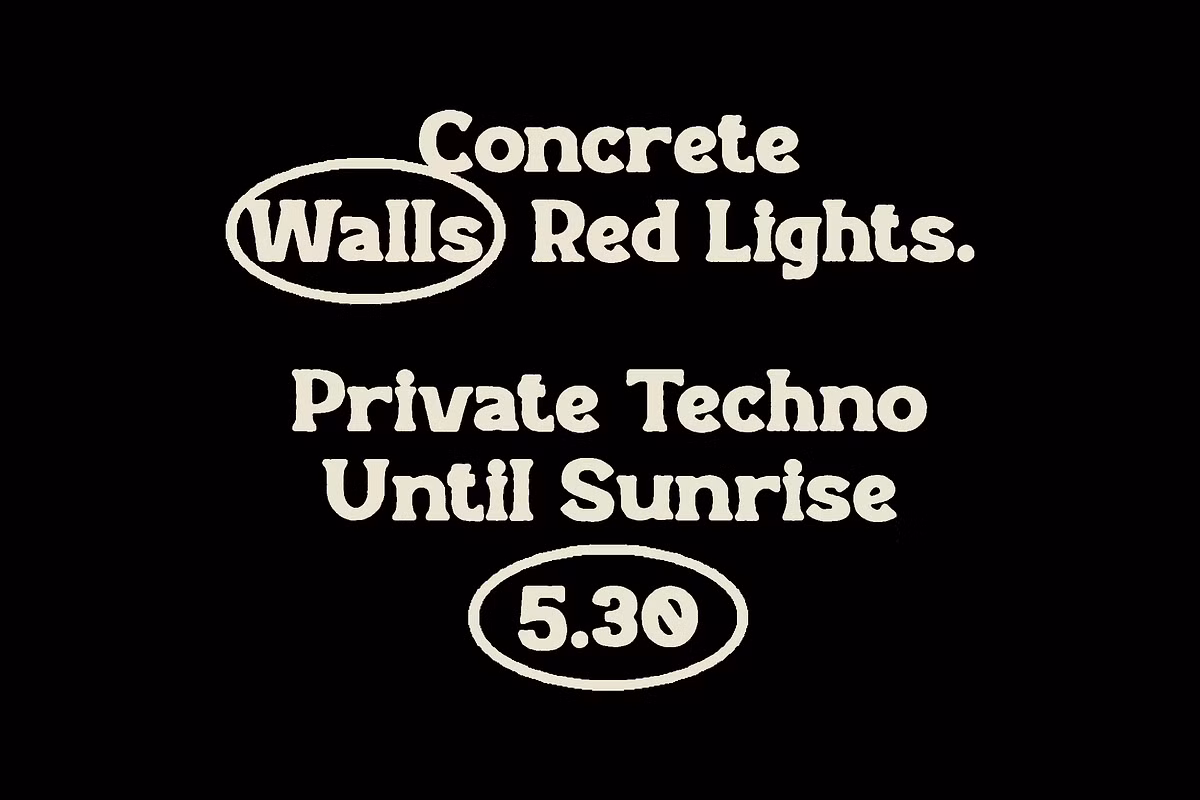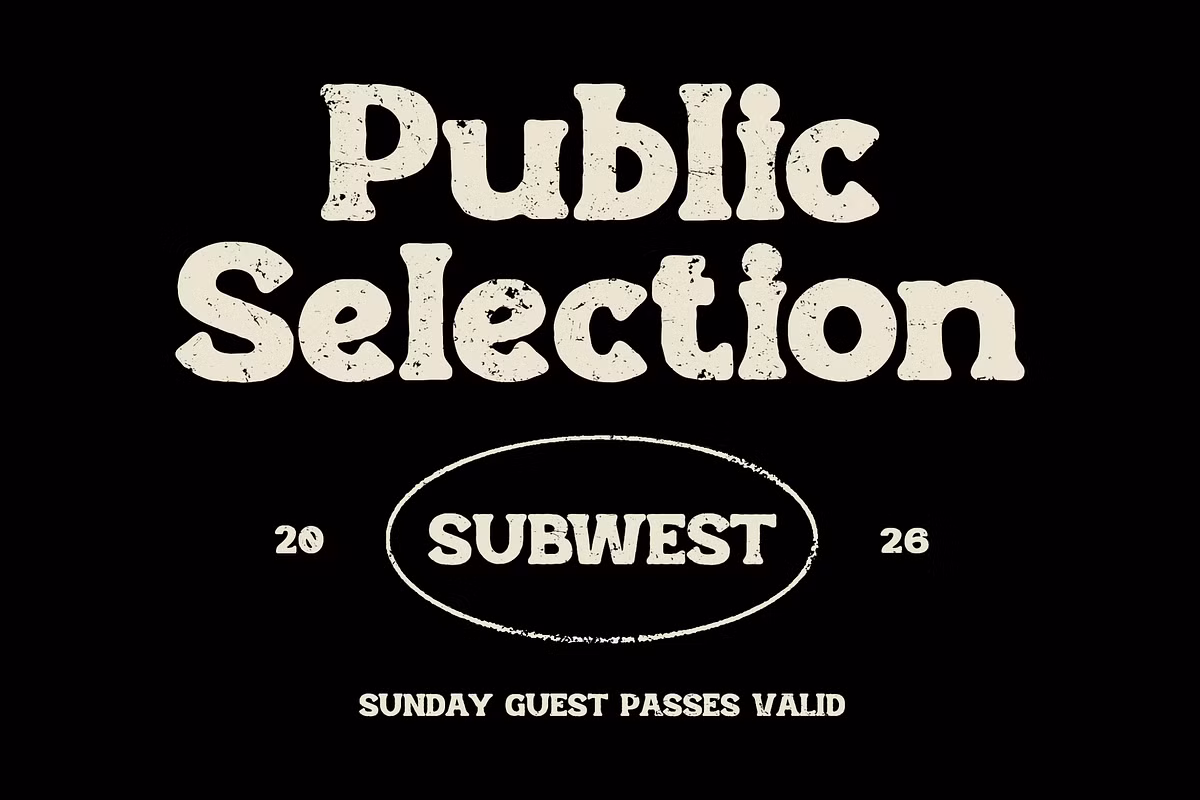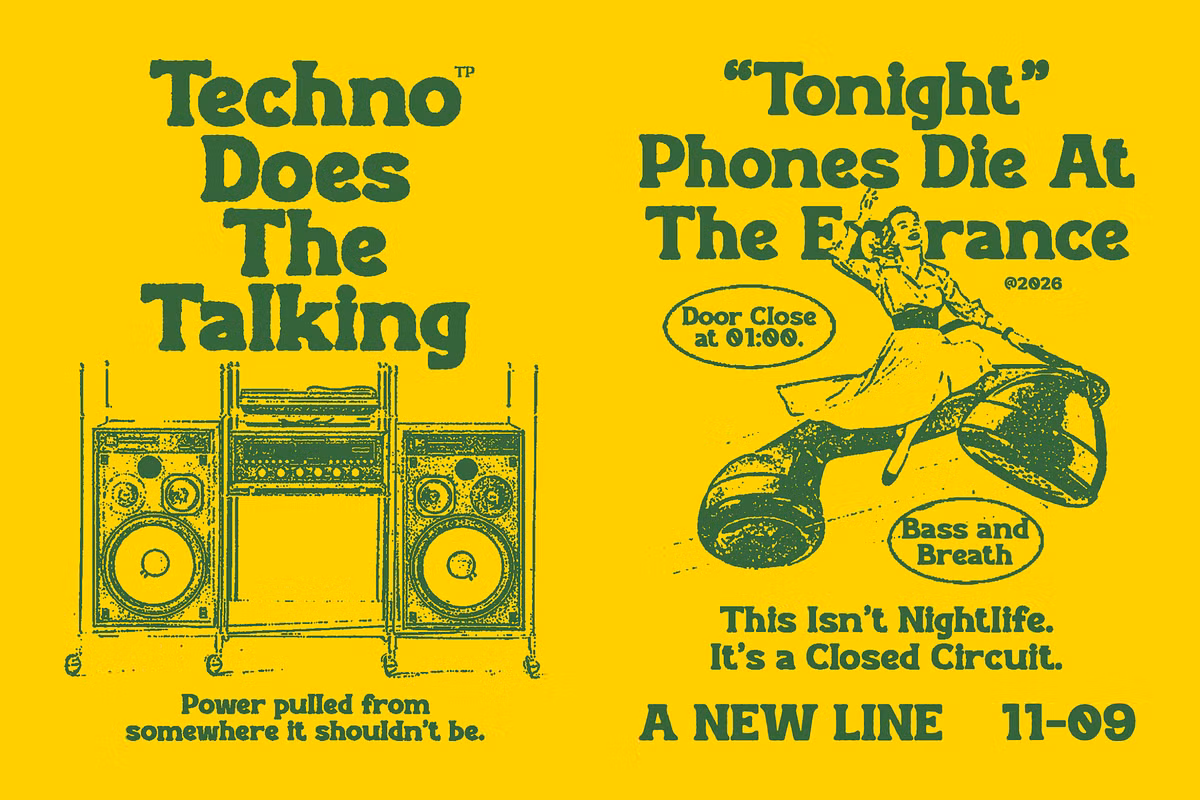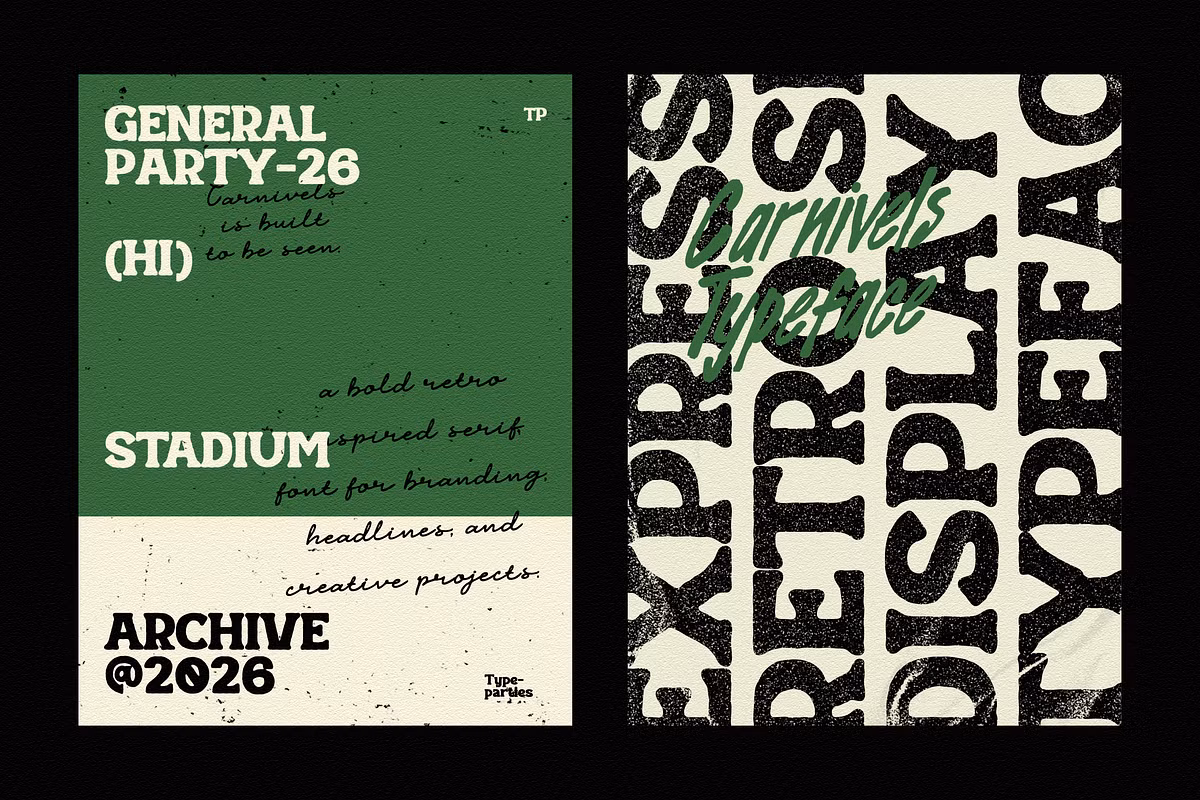
Carnivels: Playful Bold Retro Serif Font for Unique Branding
Carnivels is a bold retro serif display font designed to capture attention and evoke a sense of nostalgia. With its unique features and playful confidence, Carnivels is perfect for creative projects that demand a touch of personality. This article will delve into the design style, character sets, use cases, pairing suggestions, and licensing aspects of this distinctive typeface, ensuring you understand why it’s the ideal choice for your branding needs.
Design Style of Carnivels
Carnivels is a font that takes its cue from old-school lettering, but it’s not just a copycat – it mixes those classic looks with modern design ideas. The font has big, bold serifs and curves that are super smooth, which gives it a cozy, friendly vibe. This way of designing makes the font feel fun and playful, so it’s good for lots of different uses, but it still has its own special style. The chunky details and flowing lines work together to create a look that’s both nostalgic and fresh, making Carnivels a great choice for anyone who wants a font that’s a little bit different.
The soft edges of Carnivels make it easy to read and give it a friendly feel. This mix of old and new styles helps Carnivels connect with different types of people, making it a great choice for designers. When you’re creating a logo or poster, Carnivels’ strong look makes sure your message gets across clearly and with style. Its unique balance of classic and modern elements makes it perfect for a wide range of design projects. Whether you’re going for a bold statement or a subtle touch, Carnivels is a versatile font that can help you achieve your creative vision. With its approachable character and clear communication, Carnivels is an excellent choice for designers who want to make a lasting impression.
Character Sets and Features
Carnivels has a wide range of characters that can really make your projects stand out. This font comes with a variety of features, including:
- Uppercase Letters: Perfect for headlines and titles, ensuring your text stands out.
- Lowercase Letters: Provides versatility in design, allowing for a more relaxed and approachable feel.
- Numerics: Essential for any branding project that requires numerical representation.
- Punctuation: A complete set of punctuation marks to facilitate proper grammar and expression in your designs.
Carnivels is great for companies that want to reach people all around the world because it can be used in many different languages. This makes it a really useful tool for businesses that want to be known globally.
The characters in Carnivels are carefully designed to work well together and look good. This font has some special features that make it a great choice for many different uses, like websites, business cards, and more. It’s versatile and can be used in a lot of creative ways, both on screens and in printed materials. Whether you’re designing something for the web or for print, Carnivels is a good option because it looks good and works well in many different contexts.
Use Cases for Carnivels
Carnivels shines in various applications, making it an excellent choice for designers across different industries. Here are some of the most effective use cases:
- Headlines: The bold nature of Carnivels makes it ideal for headlines in magazines, advertisements, and social media posts, ensuring your message captures attention immediately.
- Logos: With a vintage vibe, Carnivels helps create truly one-of-a-kind logo designs.
- Posters: Whether for events, promotions, or artistic expressions, Carnivels can elevate poster designs with its playful confidence and striking presence.
- Packaging: Perfect for product packaging, creating an inviting and attractive presentation.
- Editorial Layouts: The font’s readability and charm make it suitable for articles, newsletters, and other written content, enhancing the overall aesthetic of the publication.
Pairing Suggestions for Carnivels
To maximize the impact of Carnivels in your designs, pairing it with complementary typefaces can create a balanced and visually appealing composition. Here are some effective pairing suggestions:
- Clean Sans-Serifs: Pairing Carnivels with a clean sans-serif font like Open Sans or Roboto can create a modern contrast, ensuring that the playful nature of Carnivels stands out while maintaining readability.
- Minimalist Serifs: A minimalist serif font such as Lora can harmonize with Carnivels, drawing on the retro aesthetic while providing a refined touch.
- Playful Script Fonts: For a more playful look, match Carnivels with a lively script font to add energy and visual interest.
When pairing fonts, always consider the hierarchy and purpose of your text. Carnivels works best in larger sizes, allowing its character to fully breathe and shine, so ensure that your complementary font supports this dynamic.
Carnivels is not just a font, it’s a way to make a statement. It’s fun, confident, and has a classic feel to it. With lots of characters to choose from and many ways to use it, Carnivels is great for creating a brand that stands out. When you pair it with other fonts and understand how to use it properly, you can take your designs to the next level. Let Carnivels add some personality to your work and see how it can make your projects truly special. It’s a font that can help you create something unique and memorable, and that’s what makes it so exciting to use. By embracing the spirit of Carnivels, you can bring a new level of creativity and energy to your designs, and that’s what will set them apart.